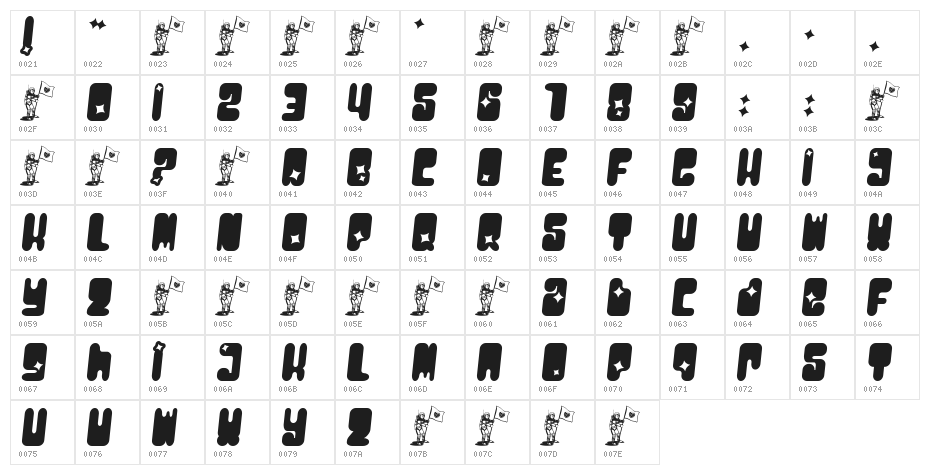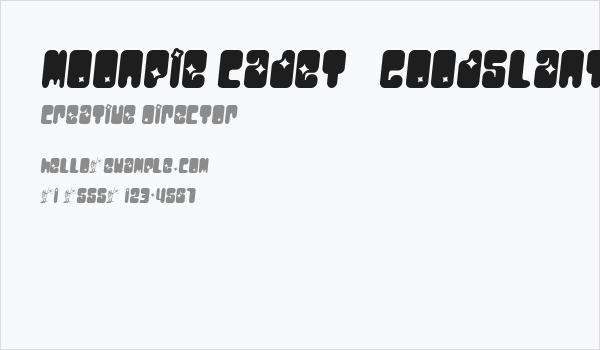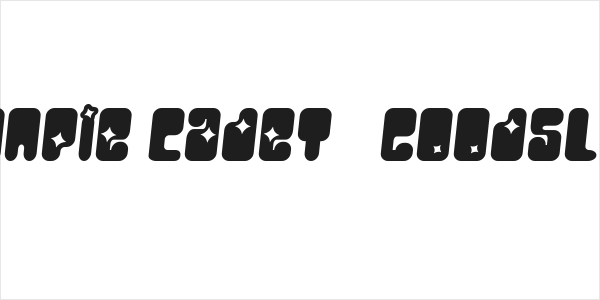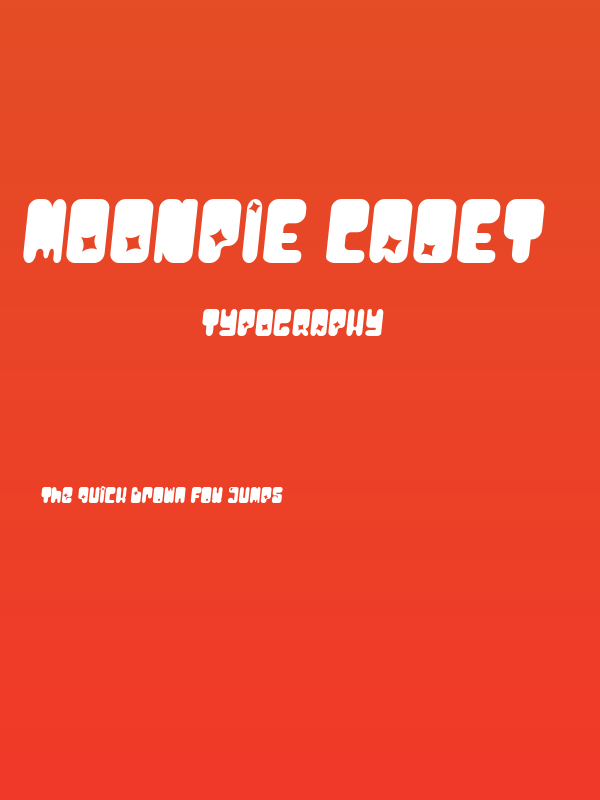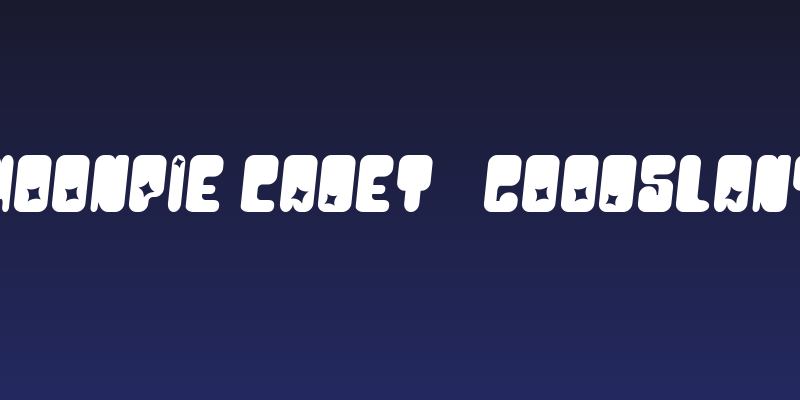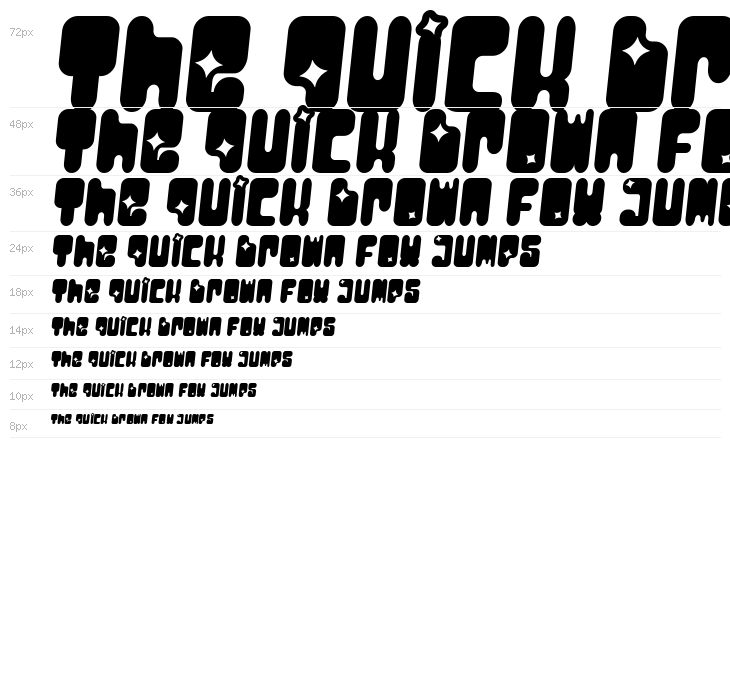
MoonPie Cadet GoodSlant Font
MoonPie Cadet GoodSlant Description
This font features a bold, playful design with a futuristic and space-themed aesthetic. The characters are rounded with thick strokes and incorporate unique star-shaped cutouts, adding a whimsical touch. The overall appearance is chunky and eye-catching, making it suitable for creative and informal projects. The font's style is reminiscent of retro sci-fi themes, with a modern twist that makes it stand out. Its distinctiveness is further enhanced by the consistent use of geometric shapes within the letters, providing a sense of uniformity and cohesion. The font is highly decorative, making it ideal for attention-grabbing headlines or themed graphics.
| Overall Style | Futuristic, Playful, Decorative |
| Proposed Projects | Ideal for sci-fi themed posters, children's book covers, video game titles, and creative branding projects. |